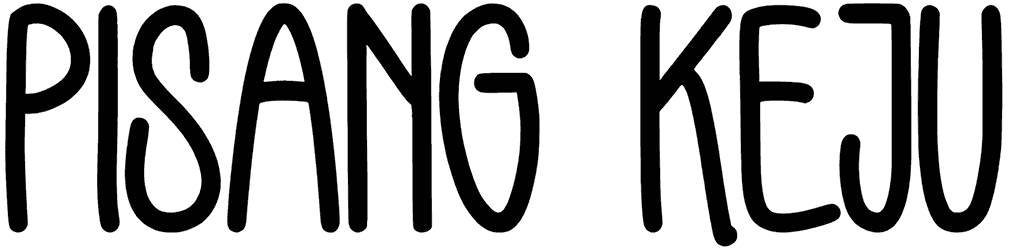
Pisang Keju Font
There are various designs that you can adorn by using a playful and natural style that has a positive effect on your audience. This cute bullet journal font, which is called Pisang Keju, has a nice face and reflects a funny vibe. With an almost full cover of characters, the Pisang Keju font will work well to illustrate your novel layouts, such as posters, comics, t-shirts, mugs, and so on.